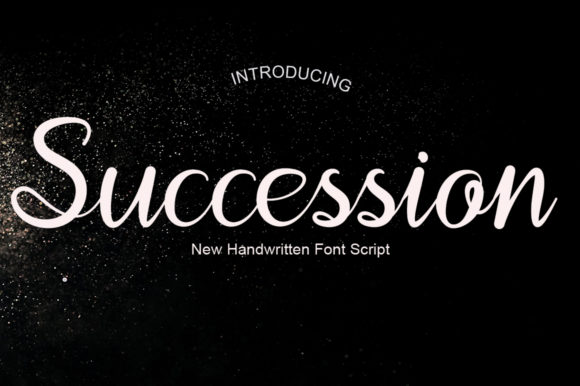
Voyage into a realm of elegance and charm with Succession Font, a masterpiece crafted to ignite creativity and leave an indelible mark on your designs. This script font exudes a timeless allure with its meticulously balanced characters and captivating aesthetic.
Unleash your imagination and craft captivating book covers, brochures, handmade crafts, greeting cards, packaging labels, social media graphics, and more. Let Succession Font's organic flow and delicate curves elevate your projects to new heights of sophistication.
Step into the world of mini embroidery and discover the endless possibilities that await with Succession Font. Its captivating charm effortlessly captures the intricate details of your designs, bringing your creations to life with a touch of whimsy and elegance.
Succession Font is not just another font; it's an experience that transports you to a world of artistry and inspiration. Its versatility knows no bounds, allowing you to explore a myriad of styles and themes with ease. Whether you're a seasoned designer or just starting your creative journey, this font will become your trusted companion, guiding you towards exceptional designs.
Immerse yourself in the beauty of Succession Font and embark on a creative odyssey that will leave you spellbound. Its timeless appeal will captivate your audience, leaving a lasting impression that lingers long after they've encountered your creations.